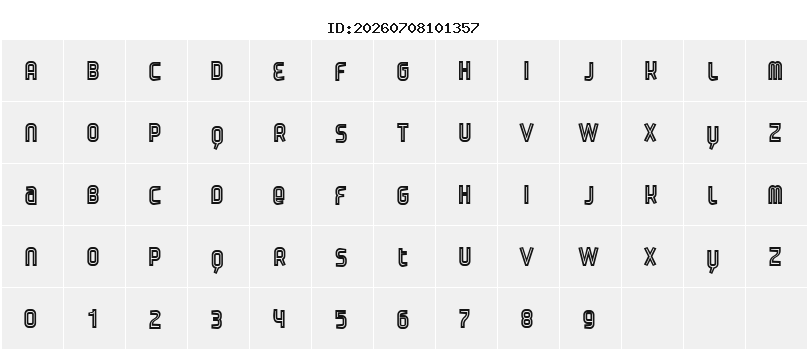
Danoutline Preview
• Font Name: Danoutline
• Full Font Name: Danoutline
About Danoutline.ttf
Danoutline.ttf is a modern, elegant sans-serif font designed for ultimate readability and visual harmony. Perfect for branding, headlines, web design, and print materials.